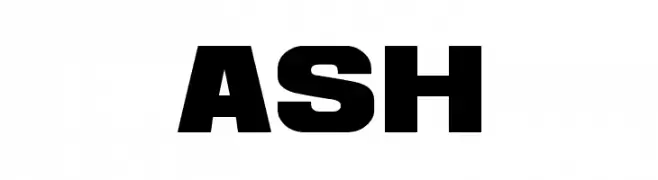
A bold, geometric font with sharp angles and a three-dimensional effect.
A playful, bold font with rounded, bubble-like characters perfect for fun designs.
A playful, bubbly font with rounded, bold characters and a cartoonish style.
A playful, bold, and rounded font with a cartoonish, bubble-like appearance.
A playful, bold font with rounded, bubble-like characters.
A playful, bubbly font with bold, rounded characters and a cartoonish style.
A playful, bold font with a cartoonish, bubbly style and thick outlines.
A playful, bubbly font with thick, rounded strokes and a cartoonish style.
A bold, playful font with rounded edges and a bubbly appearance.
A dynamic, cursive handwritten font with fluid, connected letters.
A decorative font with intricate, swirling embellishments and a whimsical style.
A classic serif font with whimsical curves and pointed serifs.
A modern, geometric sans-serif font with consistent stroke width.
An ornate, decorative font with intricate flourishes and embellishments.
Ornate dingbat set with historical and whimsical illustrations.
A diverse set of musical and eclectic dingbats with detailed illustrations.
A whimsical collection of musical, geometric, and nature-inspired dingbats.
A bold, decorative set of ornamental and symbolic glyphs.
A modern, geometric font with bold, clean lines and a structured appearance.
A whimsical, hand-drawn font with curly embellishments and dynamic strokes.
A whimsical, shadowed font with curly serifs and playful design.
A bold, italicized font with a three-dimensional, decorative style.
A bold, decorative font with a three-dimensional effect and thick outlines.
A futuristic, geometric font with rounded edges and a bold style.
An ornate blackletter-style font with intricate details and historical elegance.
A modern, bold, and geometric font with a futuristic style.
A modern, geometric font with a sleek and futuristic design.
A playful, handwritten font with a whimsical and casual style.